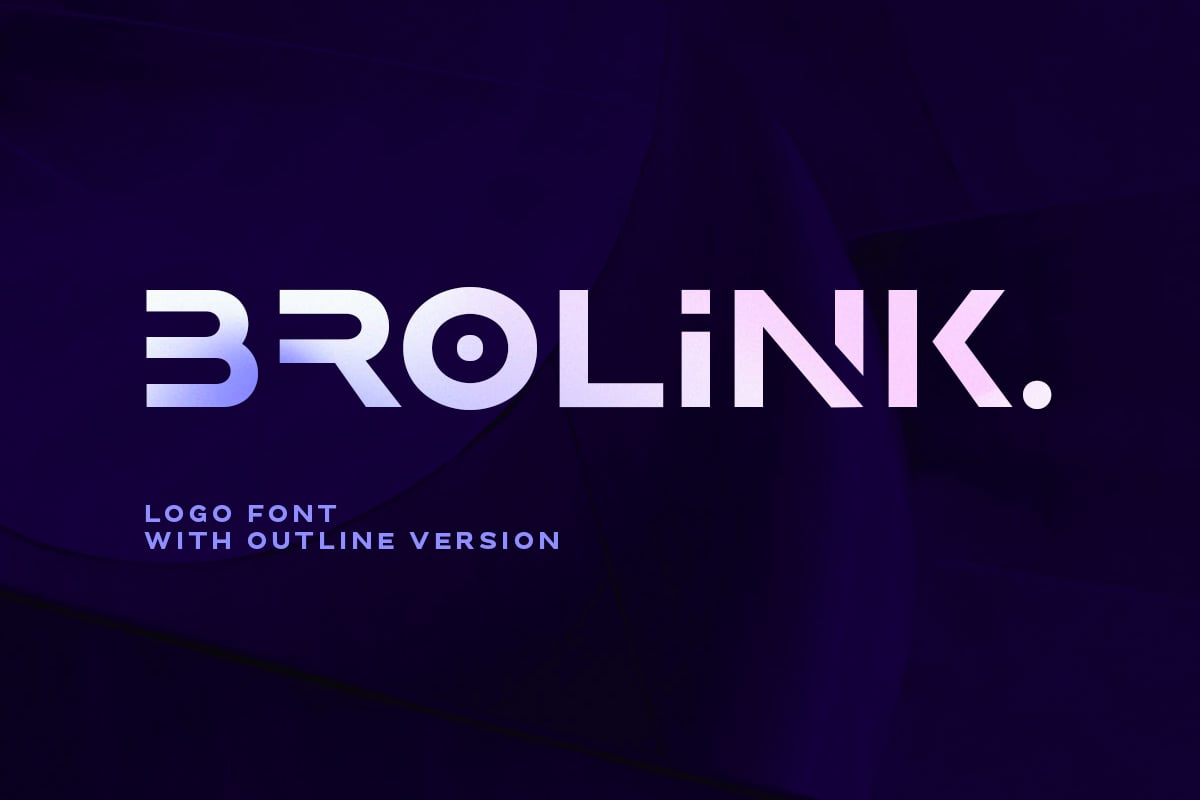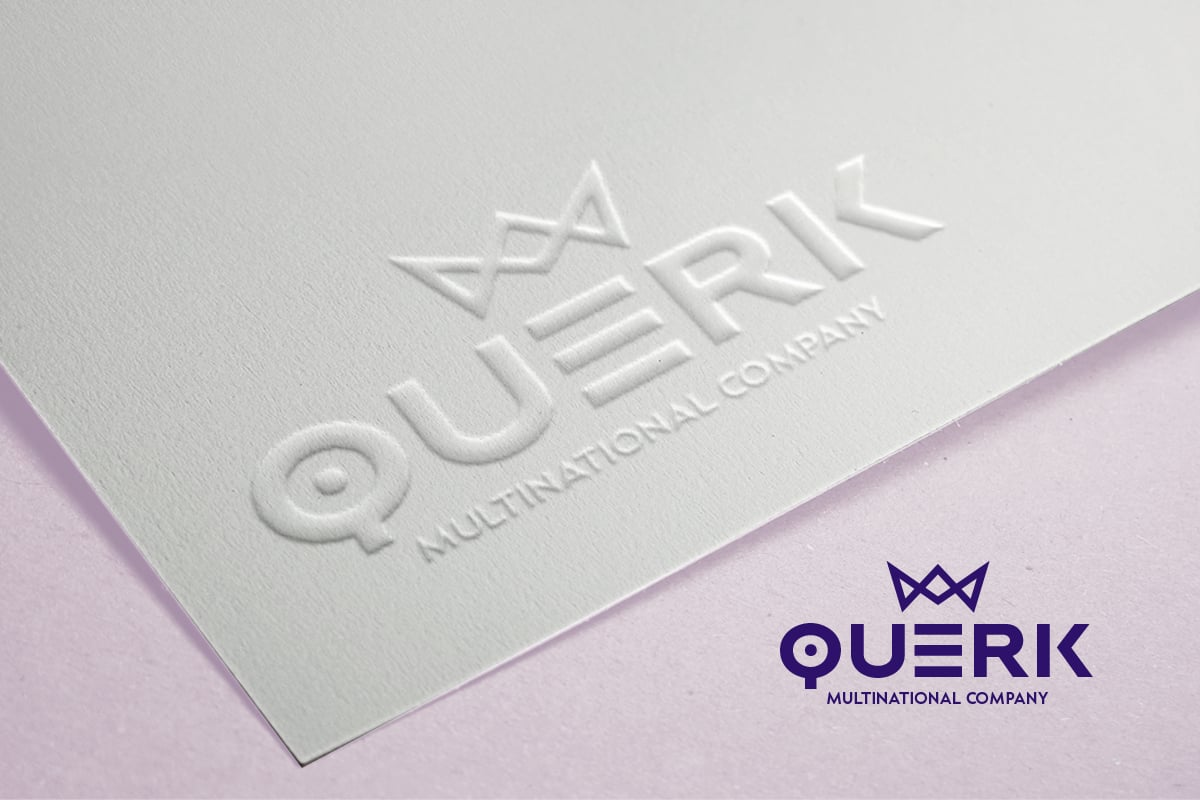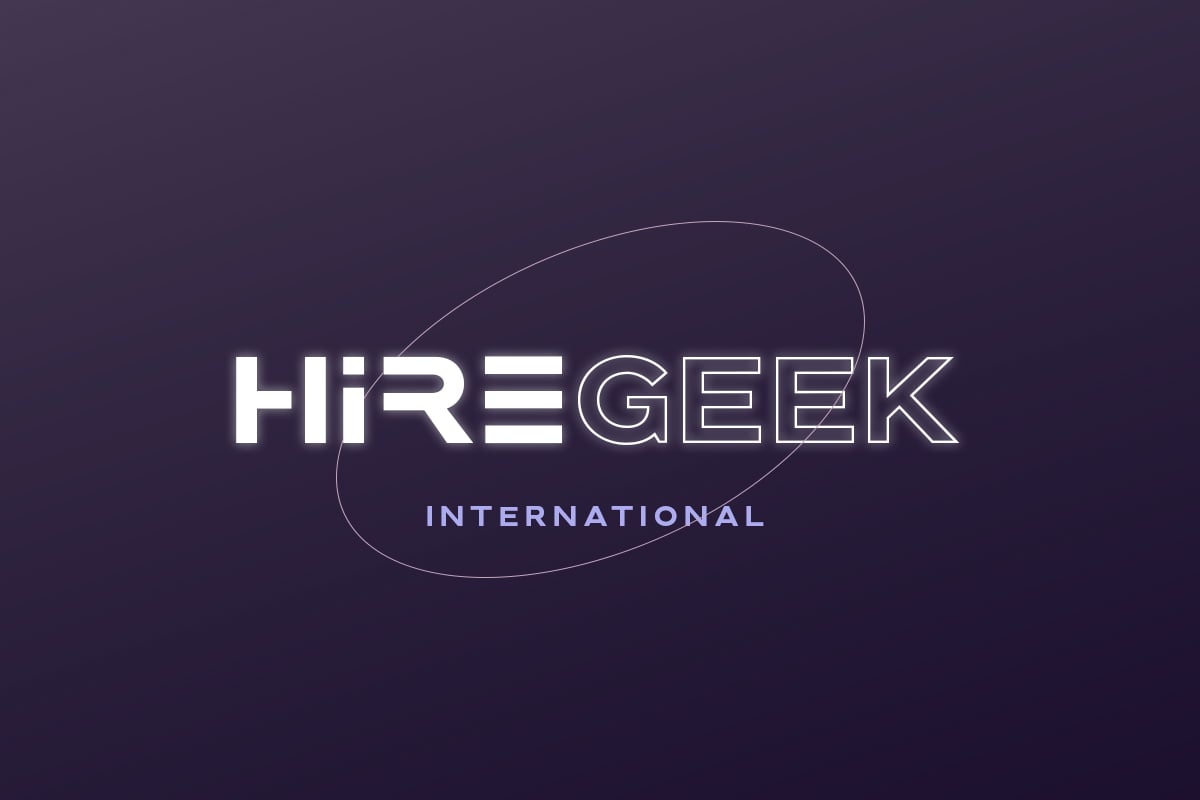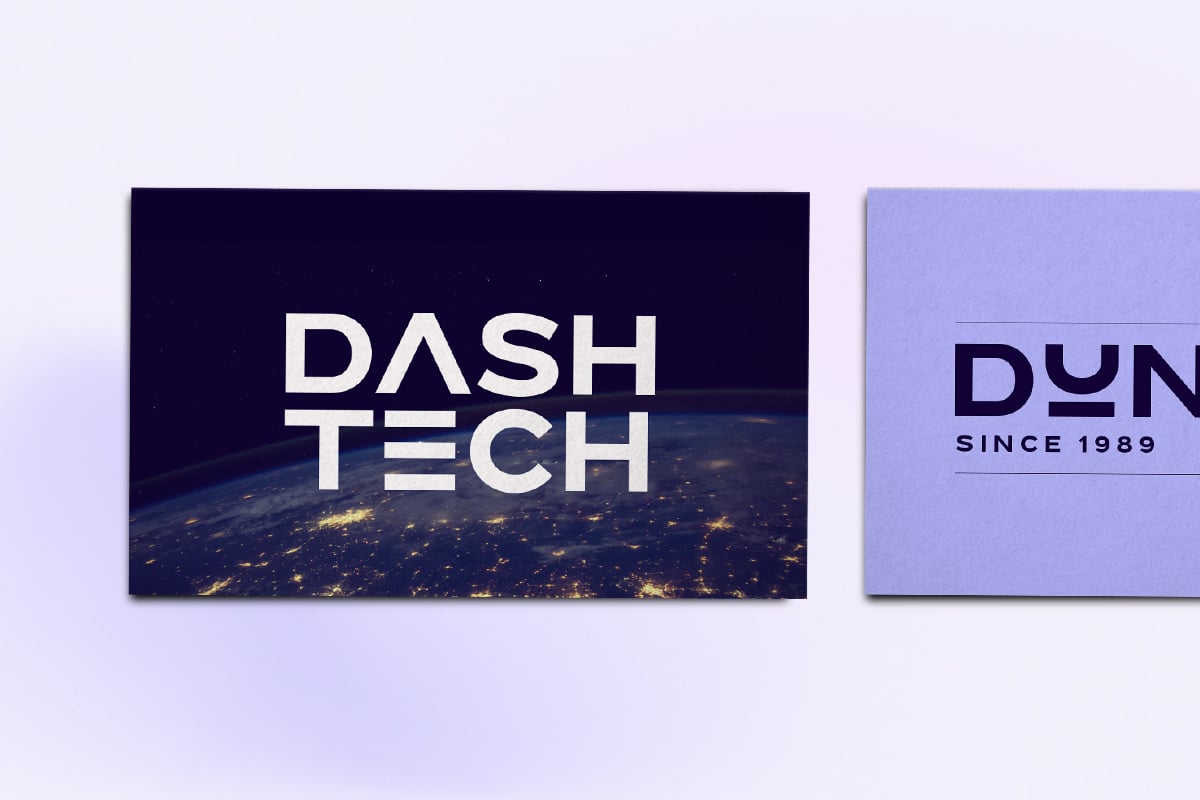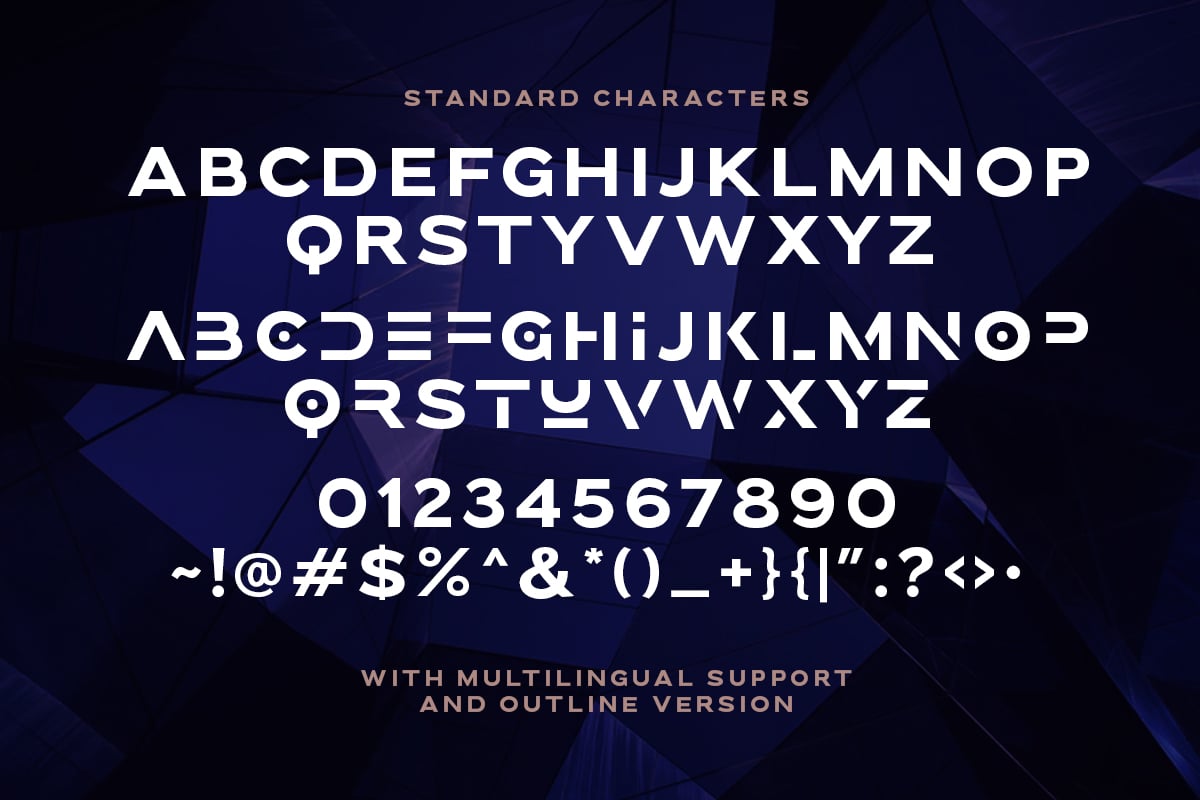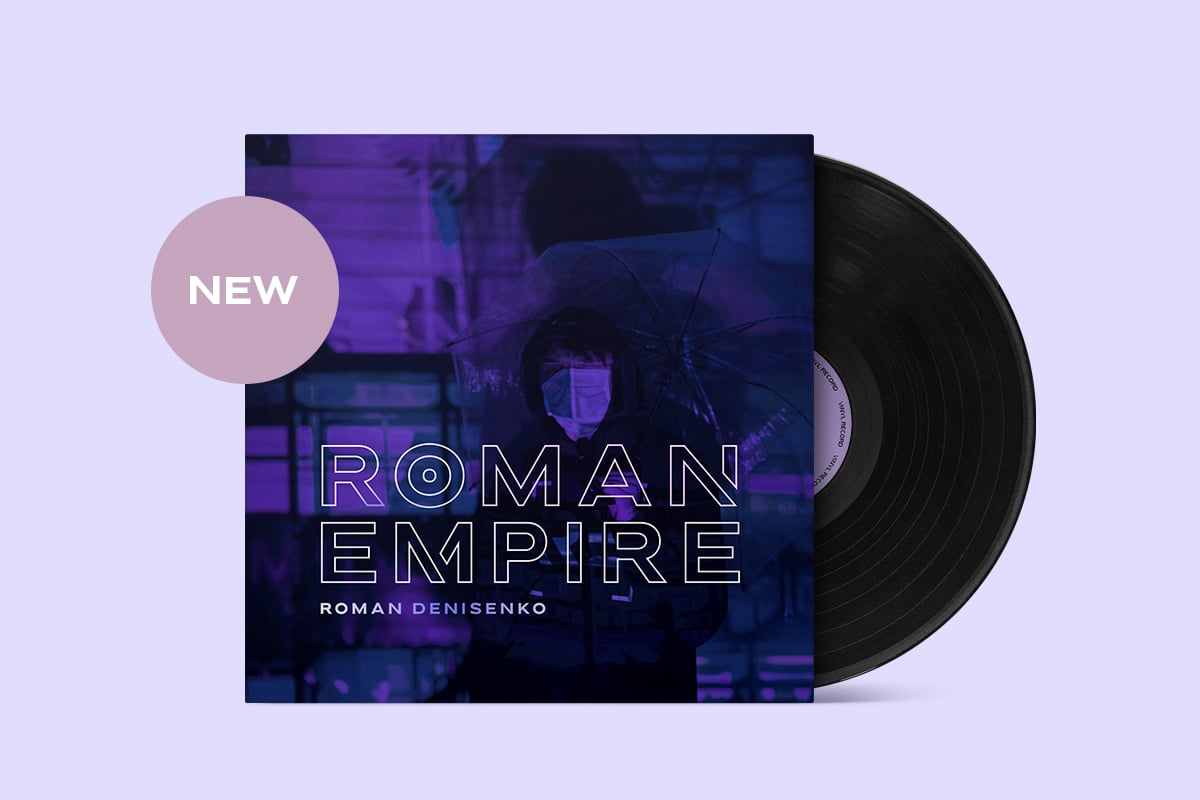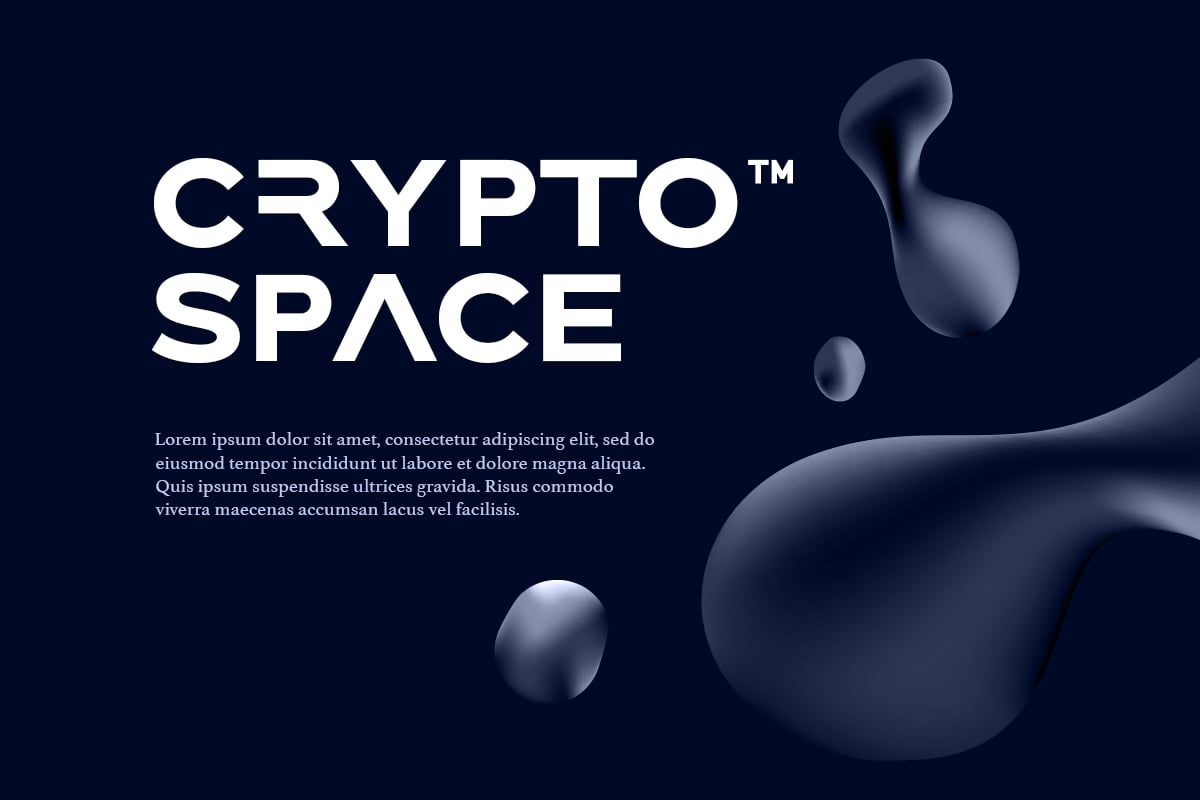
Brolink – Logo Font
Brolink is a wide bold sans based font with unique lowercase that will make your design looks sci-fi and modern. You can use this font for any purpose, especially to make logotype. You can mix and match the uppercase and lowercase to make your logo more readable. This font also comes with outline style!